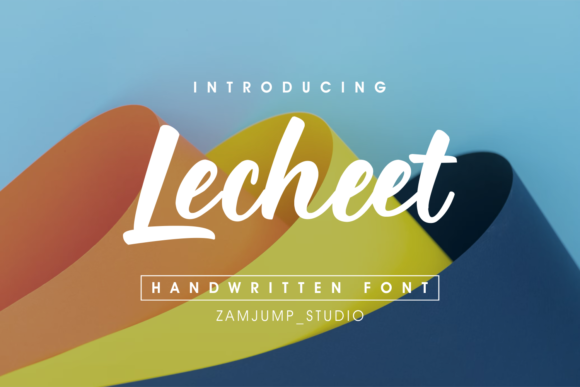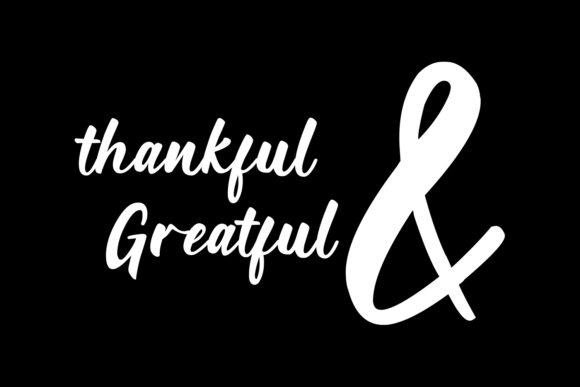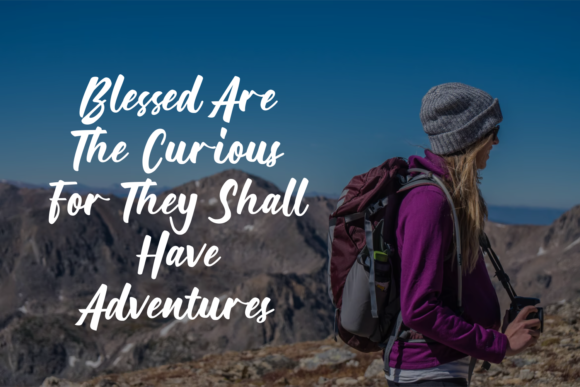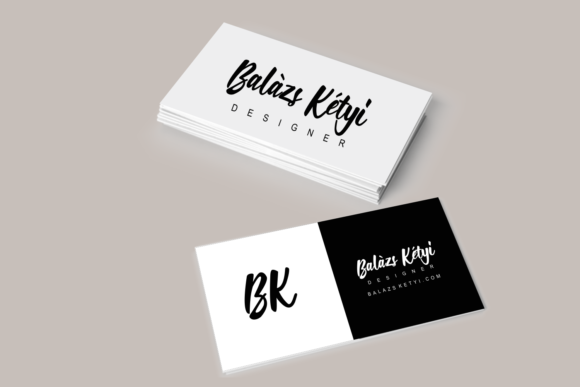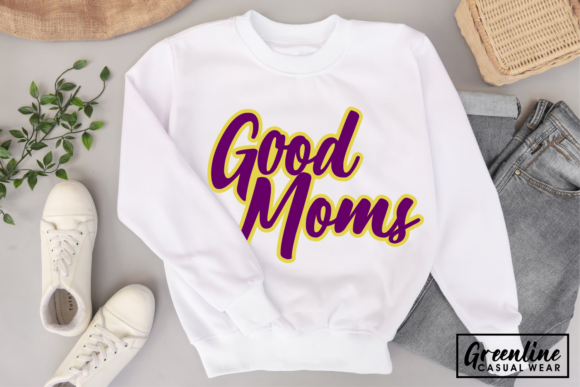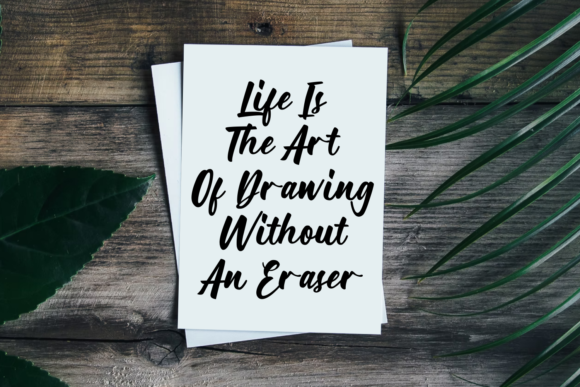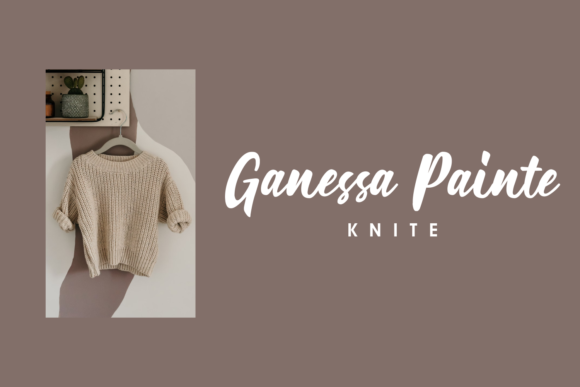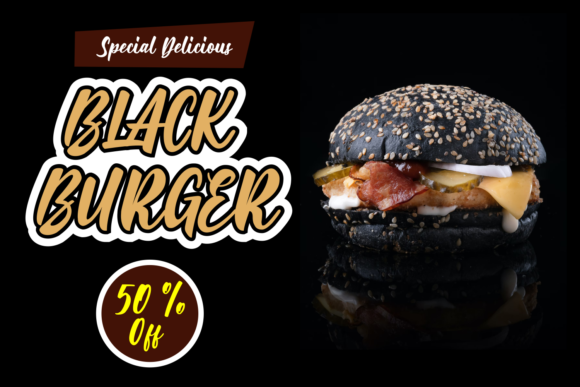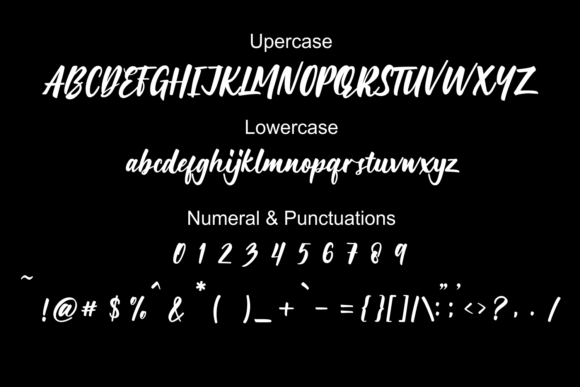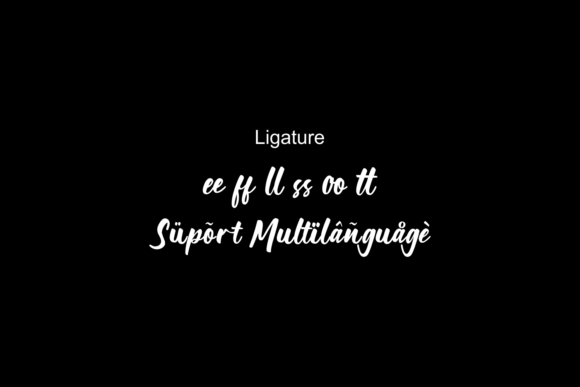
Lecheet Font
About Lecheet Font
Lecheet is a beautiful calligraphy typeface with characters that dance along the baseline. It will add a luxury spark to any design project that you wish to create!